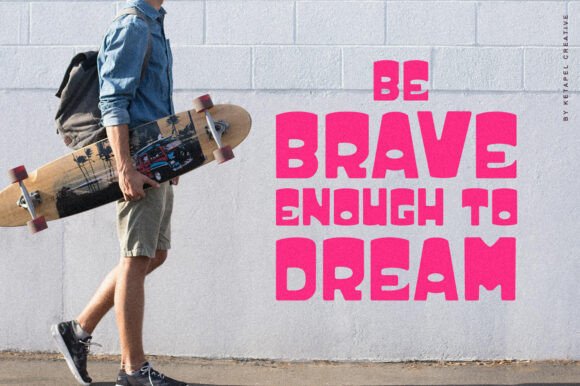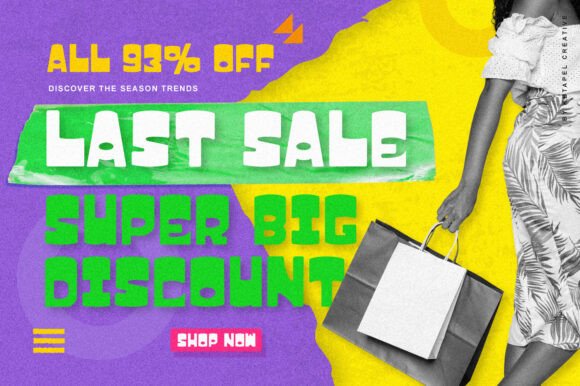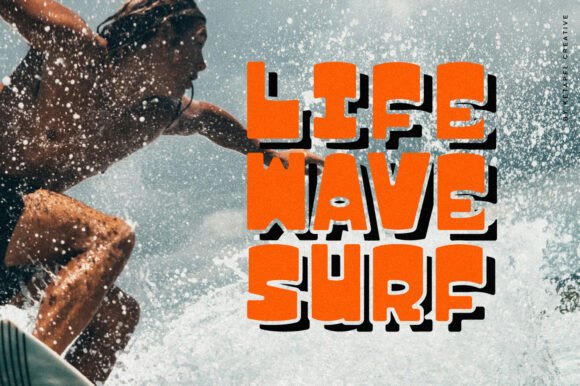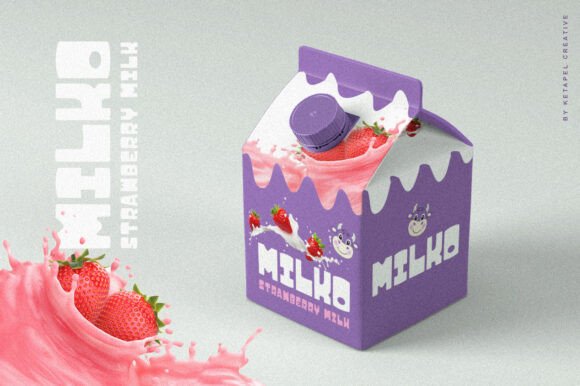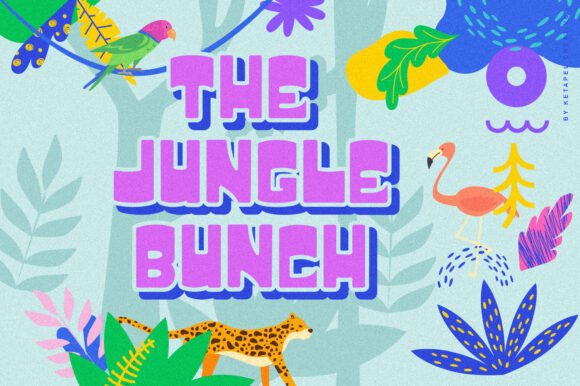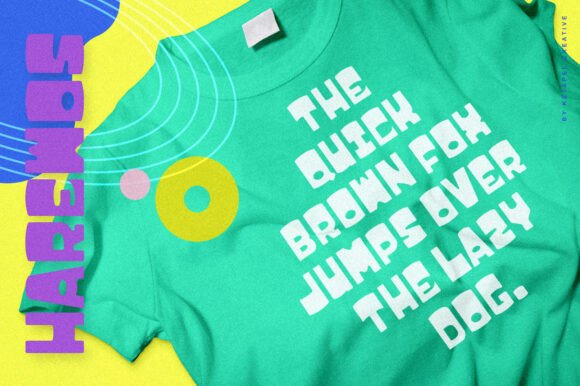
Harewos Font: The Ultimate Bold Display Font for Stunning Designs
Are you tired of using ordinary fonts that fail to make an impact on your designs? Look no further than Harewos Font, a bold display all-caps font that’s perfect for creating stunning visual content. Whether you’re working on a banner, poster, flyer, book cover, social media post, or digital print, Harewos Font is the ideal choice to make your designs stand out.
What is Harewos Font?
Harewos Font is a carefully crafted bold display font that’s designed to make a statement. Its all-caps letters are perfect for creating eye-catching headlines, titles, and captions that demand attention. With its unique and stylish design, Harewos Font is sure to elevate your designs to the next level.
Key Features of Harewos Font
- Bold and Stunning: Harewos Font is a bold display font that’s designed to make a lasting impression. Its thick lines and sharp edges make it perfect for creating stunning visual content.
- All-Caps Letters: The font features all-caps letters, making it ideal for creating headlines, titles, and captions that stand out.
- Versatile: Harewos Font is perfect for a wide range of design applications, including banners, posters, flyers, book covers, social media posts, and digital prints.
- Easy to Read: Despite its bold design, Harewos Font is easy to read, making it perfect for creating visual content that’s both stylish and legible.
Endless Possibilities with Harewos Font
With Harewos Font, the possibilities are endless. Here are some ideas to get you started:
- Banners: Use Harewos Font to create eye-catching banners that grab attention and make a lasting impression.
- Posters: Create stunning posters that showcase your brand’s personality and style with Harewos Font.
- Flyers: Use Harewos Font to create flyers that stand out and drive results.
- Book Covers: Make your book cover stand out with Harewos Font, perfect for creating eye-catching titles and headlines.
- Social Media: Use Harewos Font to create stunning social media posts that grab attention and drive engagement.
- Digital Prints: Create stunning digital prints that showcase your brand’s personality and style with Harewos Font.
Why Choose Harewos Font?
There are many reasons to choose Harewos Font for your design needs. Here are a few:
- Unique Design: Harewos Font features a unique and stylish design that’s sure to make your designs stand out.
- High-Quality: The font is carefully crafted to ensure high-quality and crisp lines, making it perfect for both digital and print applications.
- Versatile: The font is perfect for a wide range of design applications, making it a great addition to your font library.